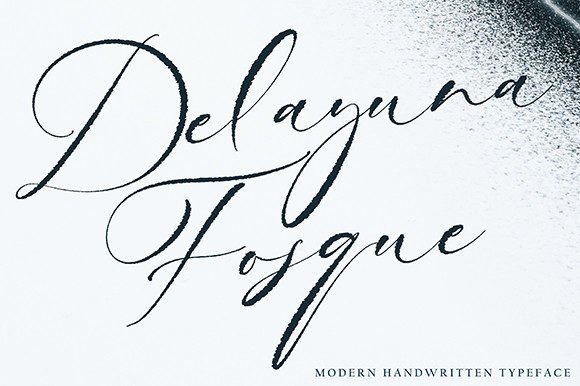
In a world brimming with digital designs, let Delayuna Fosque Font unveil your profound artistry. Sculpted with grace and poise, this handwritten font seamlessly merges timeless elegance with a touch of modernity. Crafted by the skilled hands at Pineungtype & Missinklab, Delayuna Fosque is not merely a font; it's an artistic journey waiting to be embarked upon.
As you delve into the depths of this remarkable script font family, discover the captivating allure that lies within. Its clean and flowing strokes evoke a sense of sophistication, while its subtly playful curves add a touch of whimsy, making it the perfect choice for any creative project yearning for a touch of distinction.
With Delayuna Fosque, you're not just downloading a font; you're embarking on an artistic voyage where your imagination sets sail. Whether you're a seasoned designer seeking to elevate your creations or a passionate hobbyist eager to explore the realm of digital art, Delayuna Fosque will be your steadfast companion on this creative odyssey.
Unleash the boundless potential hidden within Delayuna Fosque and watch as your designs blossom into masterpieces. Be it a captivating logo that demands attention, an alluring social media post that enchants the senses, or an unforgettable branding experience that leaves a lasting impression, Delayuna Fosque will be your trusted ally, transforming your visions into tangible works of art.
Don't settle for ordinary fonts that fade into the background. Embrace the artistry of Delayuna Fosque and unlock a world of creative possibilities. Let your designs shine with an elegance that captivates, a charm that enchants, and a uniqueness that sets you apart from the rest.